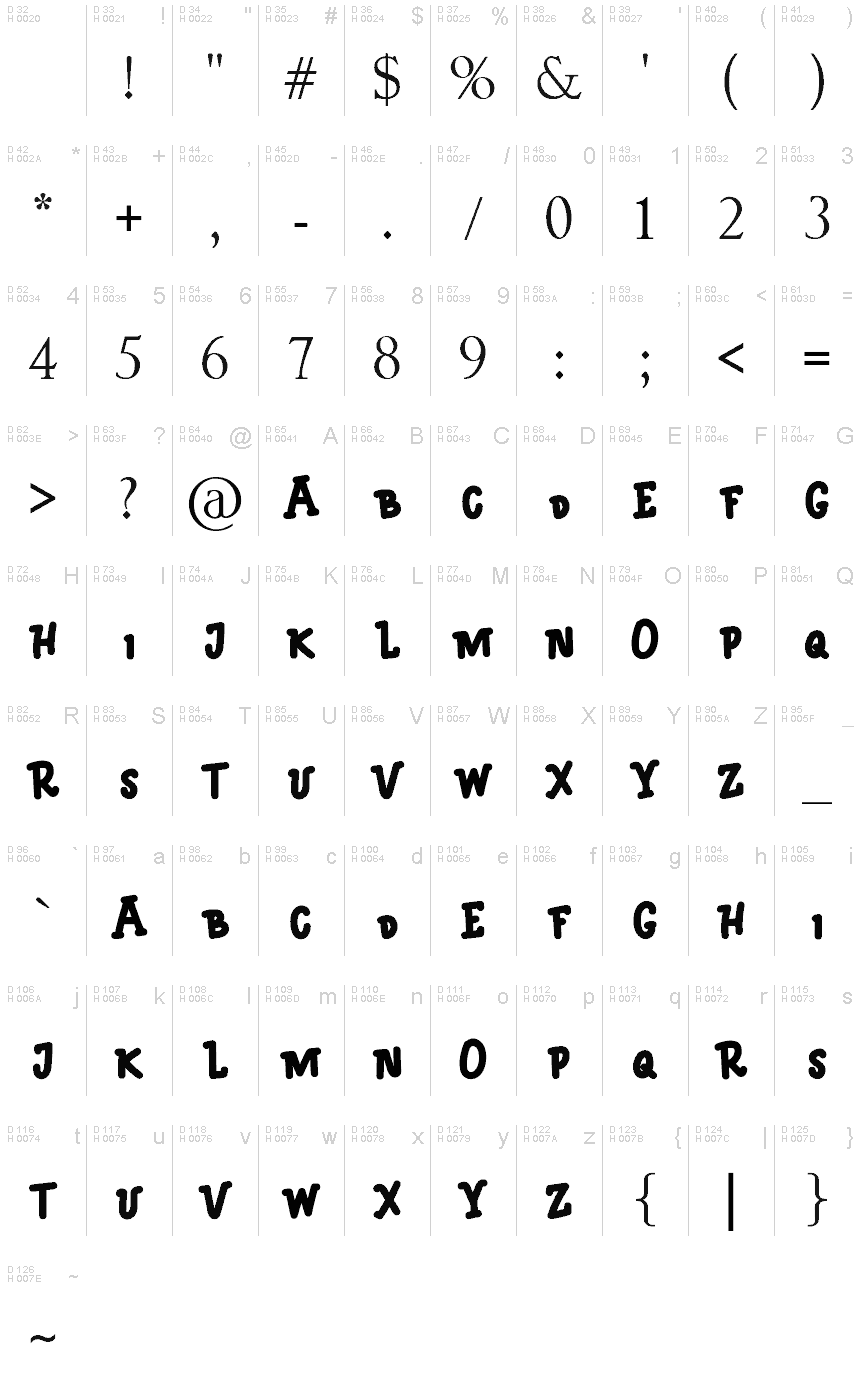
MONICA
Monica is a captivating display font that exudes a playful, comic-inspired aesthetic. Designed by Fanastudio, this font boasts whimsical letterforms with distinctive rounded edges and a playful, hand-drawn quality.
The bold, dynamic strokes and irregular line thickness lend a charming, casual flair, making Monica an ideal choice for various design applications, from playful branding and packaging to eye-catching headlines and promotional materials. Its versatile nature allows it to seamlessly integrate into a wide range of design concepts, from modern and minimal to vibrant and quirky.
Monica's unique personality makes it a standout option for designers seeking to add a touch of personality and character to their projects.